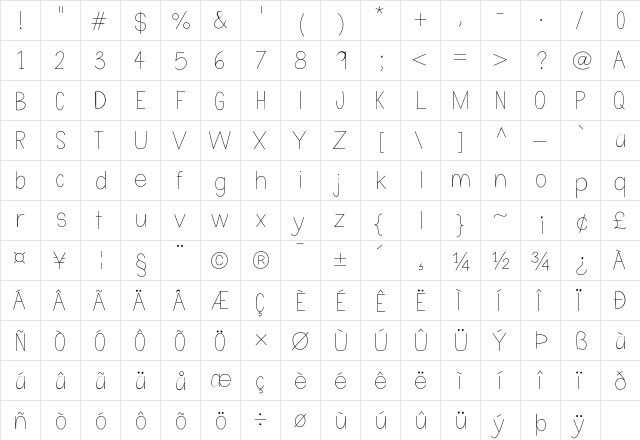
Nothing Special Regular Font Preview
Nothing Special Regular
Nothing Special Regular Font Details
Design Context for Nothing Special Typeface
Nothing Special takes a measured approach to typography — its balanced proportions and neutral character make it a reliable workhorse for both digital and print work. Its slender proportions lend an understated elegance to any composition.